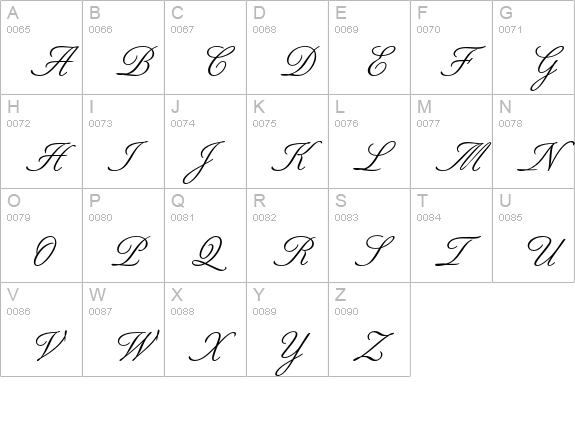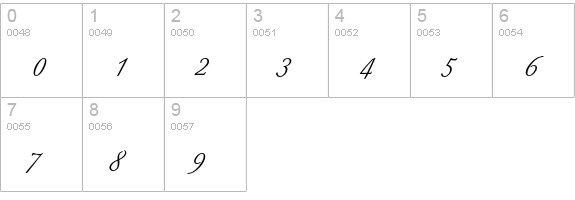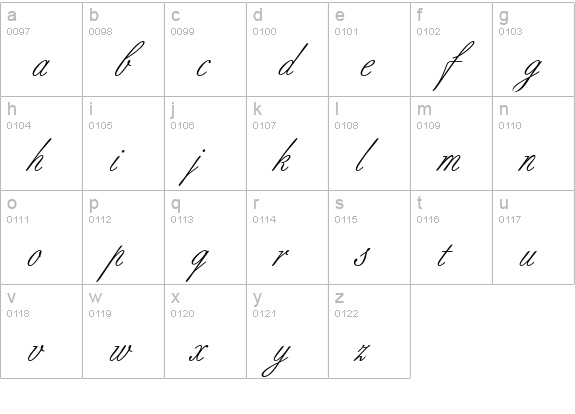
Berthold Script Regular is the standard, neutral variant in the Berthold typeface family \xE2\x80\x94 well suited to general body text, paragraphs, and standard typographic work.
Berthold Script Regular font exudes elegance and sophistication with its flowing and intricate script design. Perfect for adding a touch of charm and class to any project, this font is ideal for invitations, greeting cards, and other designs where a touch of handcrafted beauty is desired. The smooth lines and graceful curves of Berthold Script Regular make it a versatile choice for both print and digital projects. Whether you're designing wedding stationery or creating a logo for a luxury brand, this font will elevate your work with its timeless aesthetic. And the best part? Berthold Script Regular is available for free download at FontsMarket.com. Now you can add this stunning font to your collection without breaking the bank. Don't miss out on the opportunity to enhance your designs with the beauty and charm of Berthold Script Regular font.